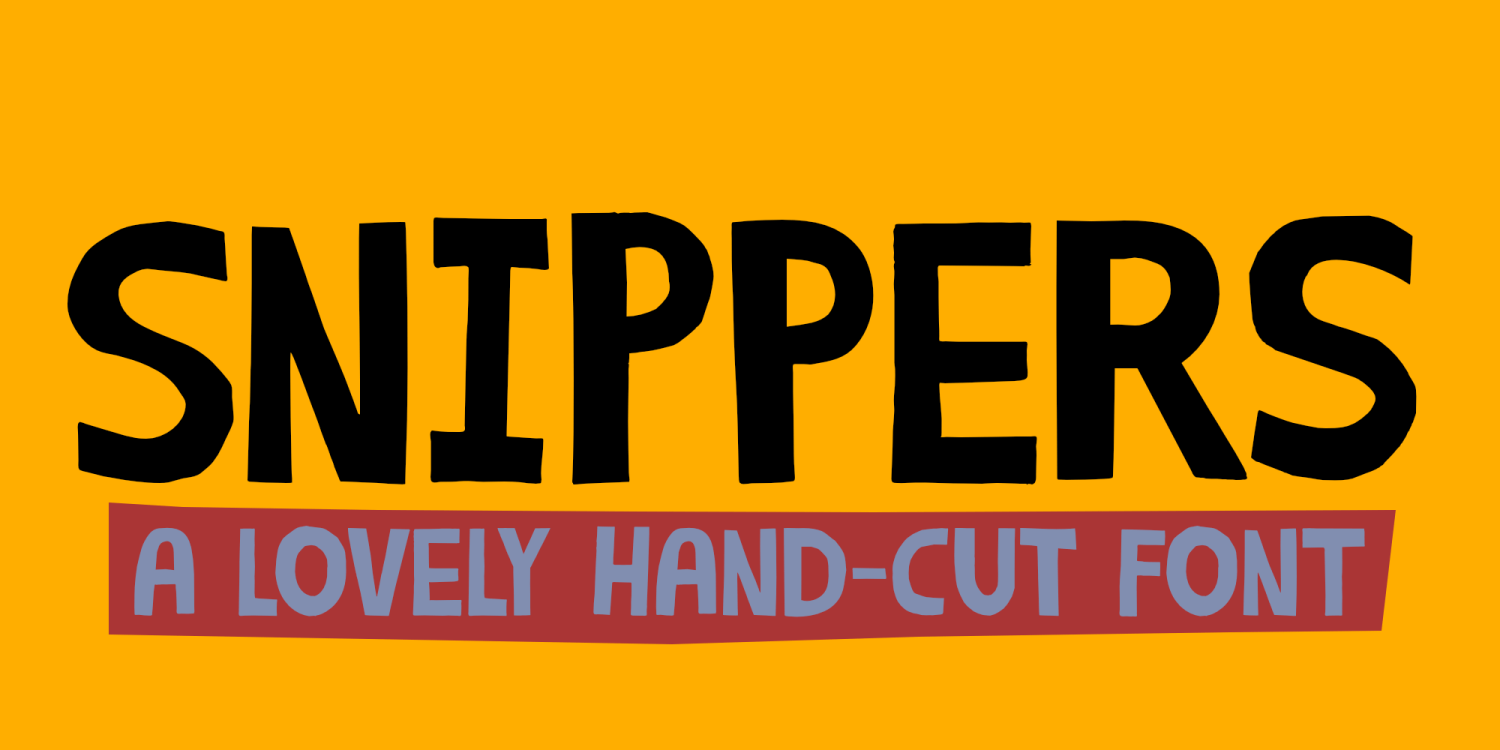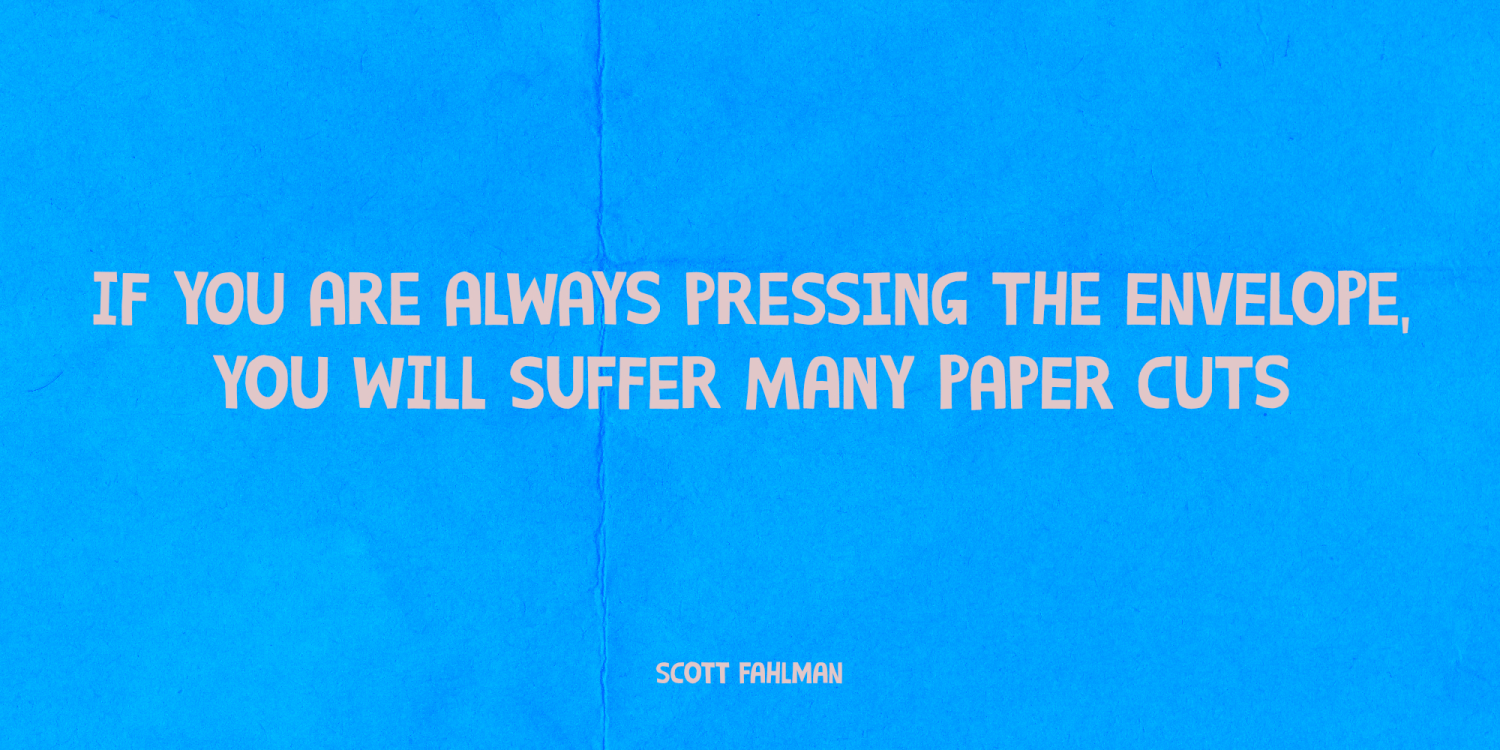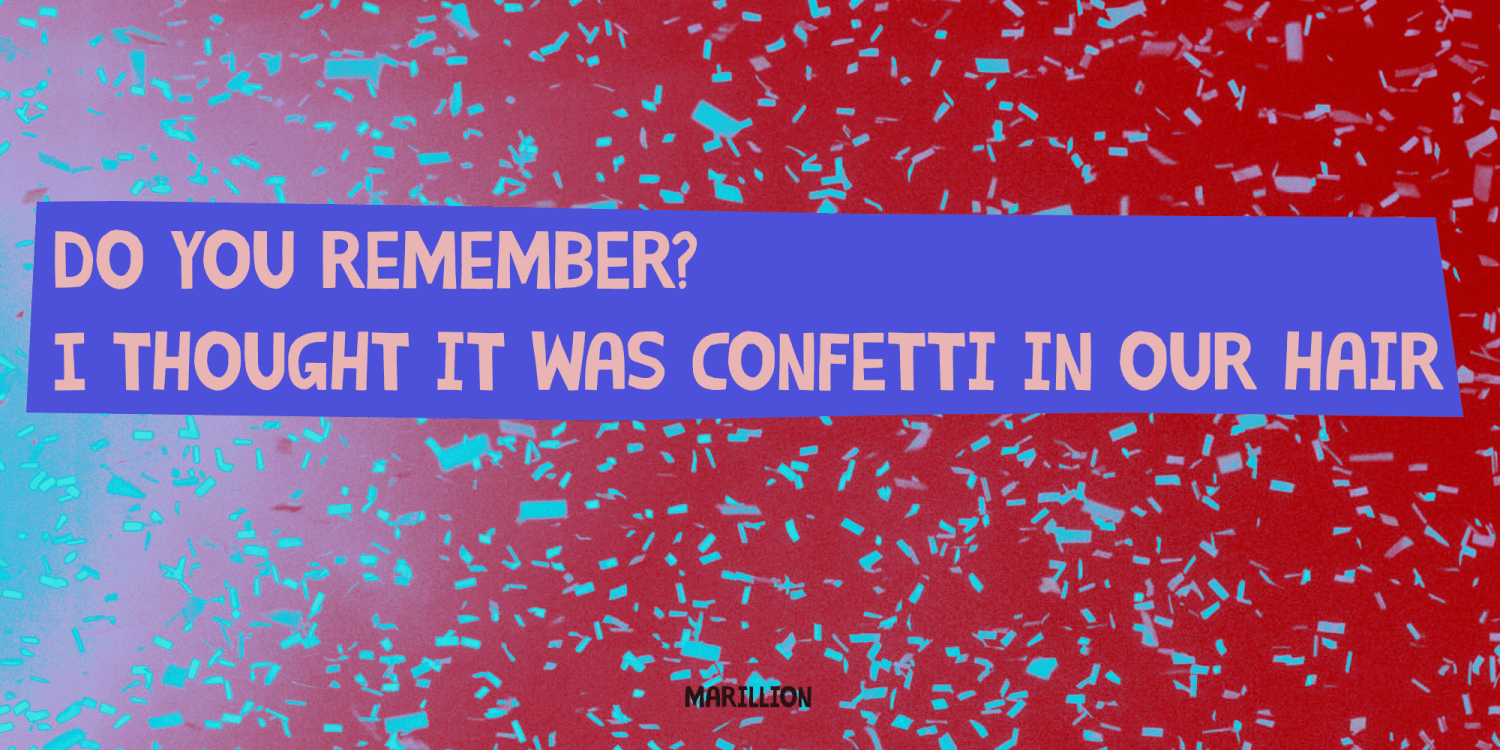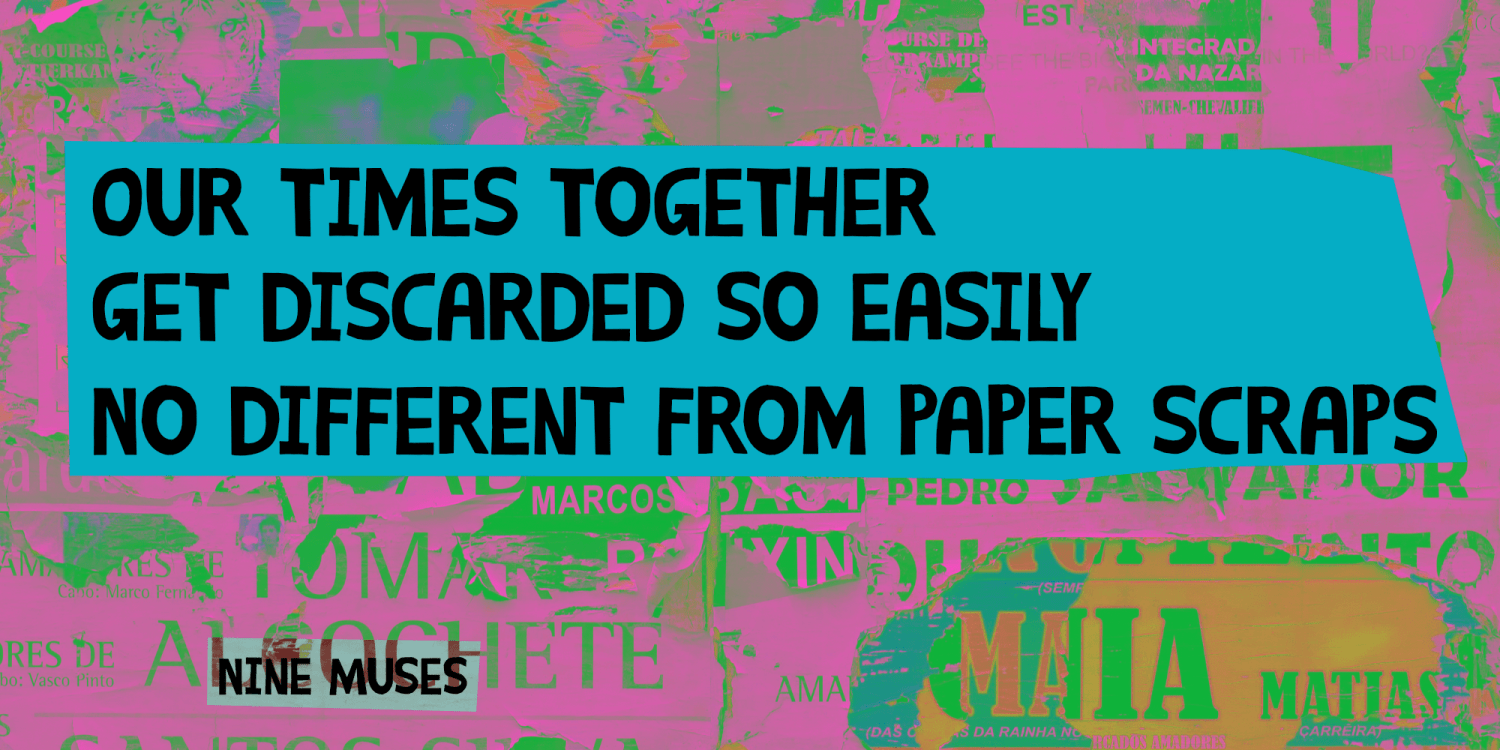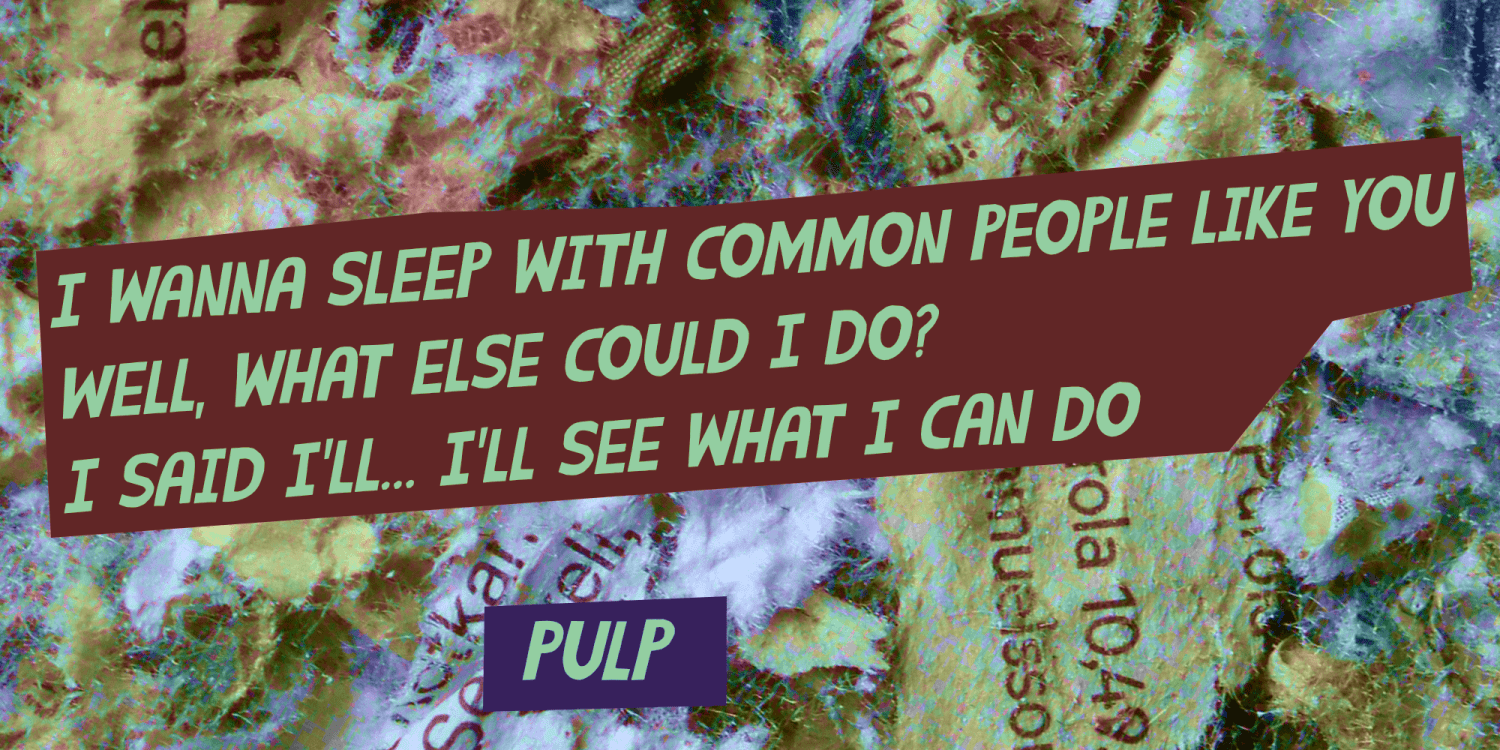
Snippers
Snippers is a Dutch word, meaning ‘scraps’. Usually it is used for paper scraps. It comes from the word ‘snippen’, which is an obsolete word meaning ‘to cut’. I like making cut-out fonts, but since it takes so much time and it leaves me with a lot of snippers, I don’t do it too often.
Snippers is (you’ve guessed it) a cut-out font. It is a little wobbly and worn, but that is what a cut-out fonts should look like IMHO.